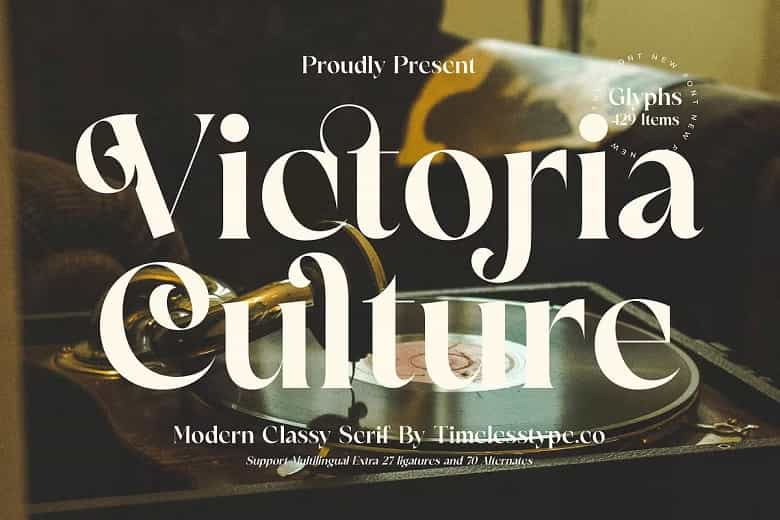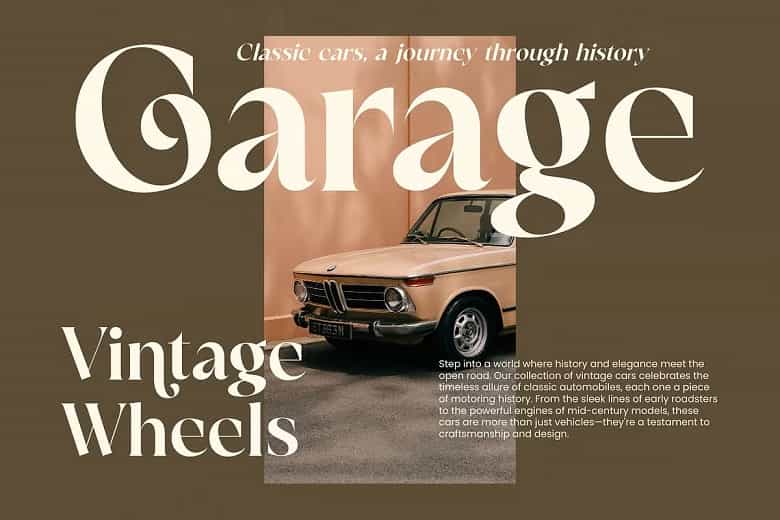
Victoria Culture is a new classy serif typeface, from Timelesstype.Co , It’s suitable for any projects such as: Eatery logos, branding projects, homeware designs, product packaging, mugs, quotes, posters, shopping bags, tees, book covers, name card, invitation cards, greeting cards, label, special events, and all your other luxury and beautiful projects that need a luxury serif design.